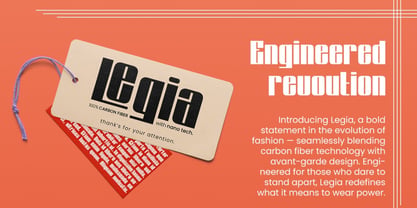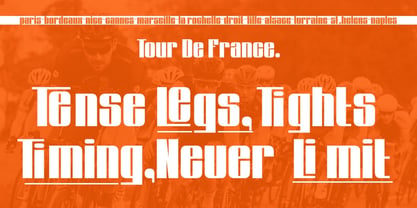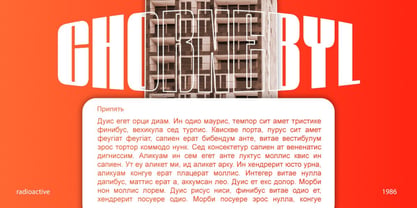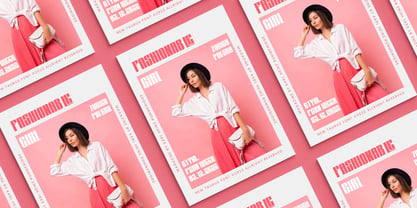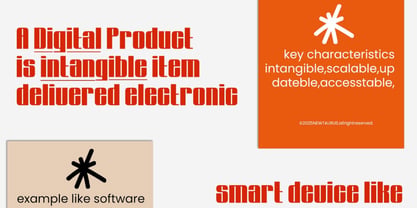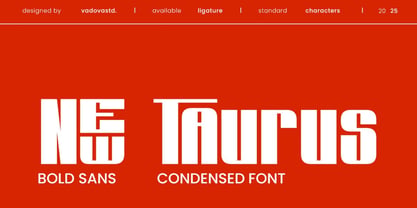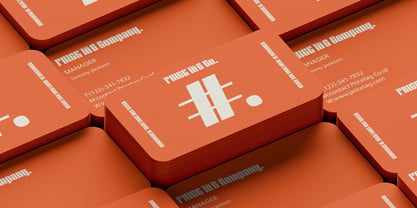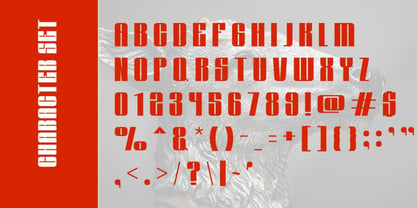
New Taurus
New Taurus is a bold sans serif condensed typeface designed to command attention in high-energy, visual-forward designs. With a striking, geometric letterform and compressed layout, it delivers power and edge in every character. The font’s structure is clean and highly modular, with blocky shapes and dynamic spacing that make it feel futuristic, stylish, and slightly rebellious. Perfect for Gen-Z-driven visuals and streetwear aesthetics, New Taurus thrives in youth-centric design environments like music promotions, tech startups, and creative Instagram content.
Main Features
• Uppercase & Lowercase characters
• Numeral & Punctuations